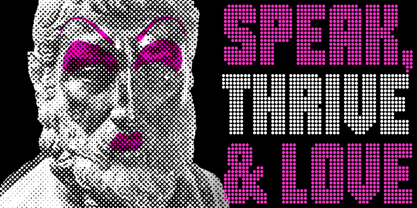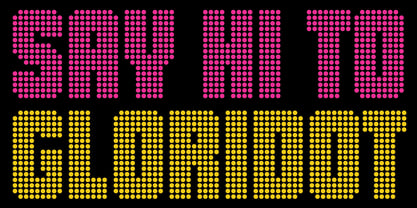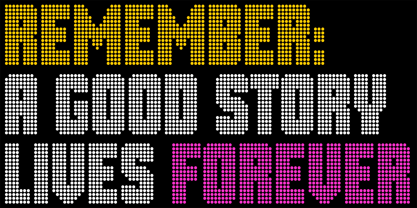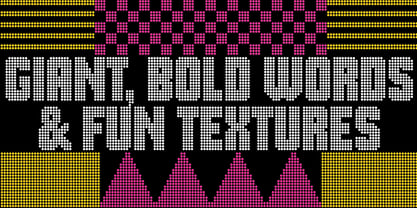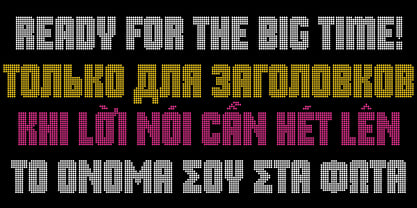
Gloridot
The Gloridot Font Family was designed by Dan Rhatigan and published by Bijou Type. Gloridot contains 1 styles.
Gloridot is meant for big, solid headlines and titles. The design began with a handful of letters from an unidentified typeface on old magazine cover that Dan Rhatigan was trying to recreate for an issue of his zine, Pink Mince. The grid of dots that formed those few glorious letters at first seemed like a simple system for constructing an alphabet, then grew into a fascinating puzzle as the system expanded into a typeface supporting about 505 languages, plus symbols that can be used to create borders and patterns.
Gloridot